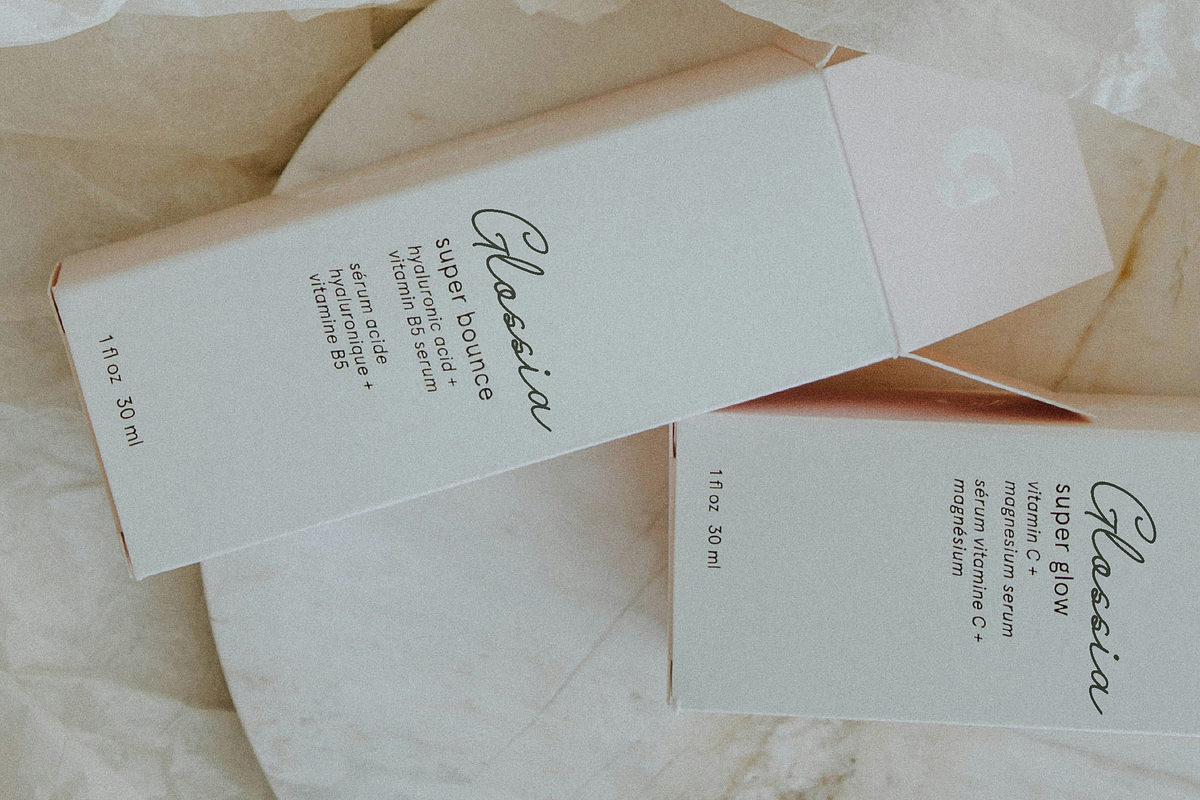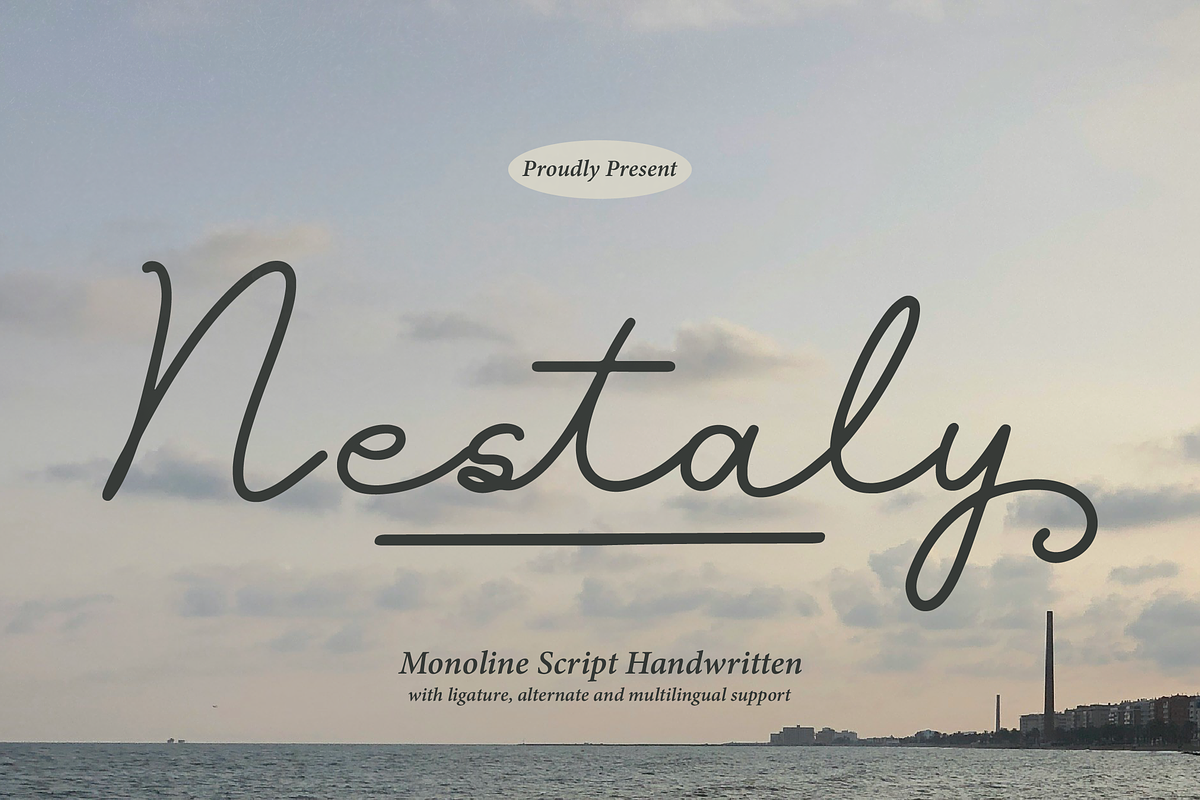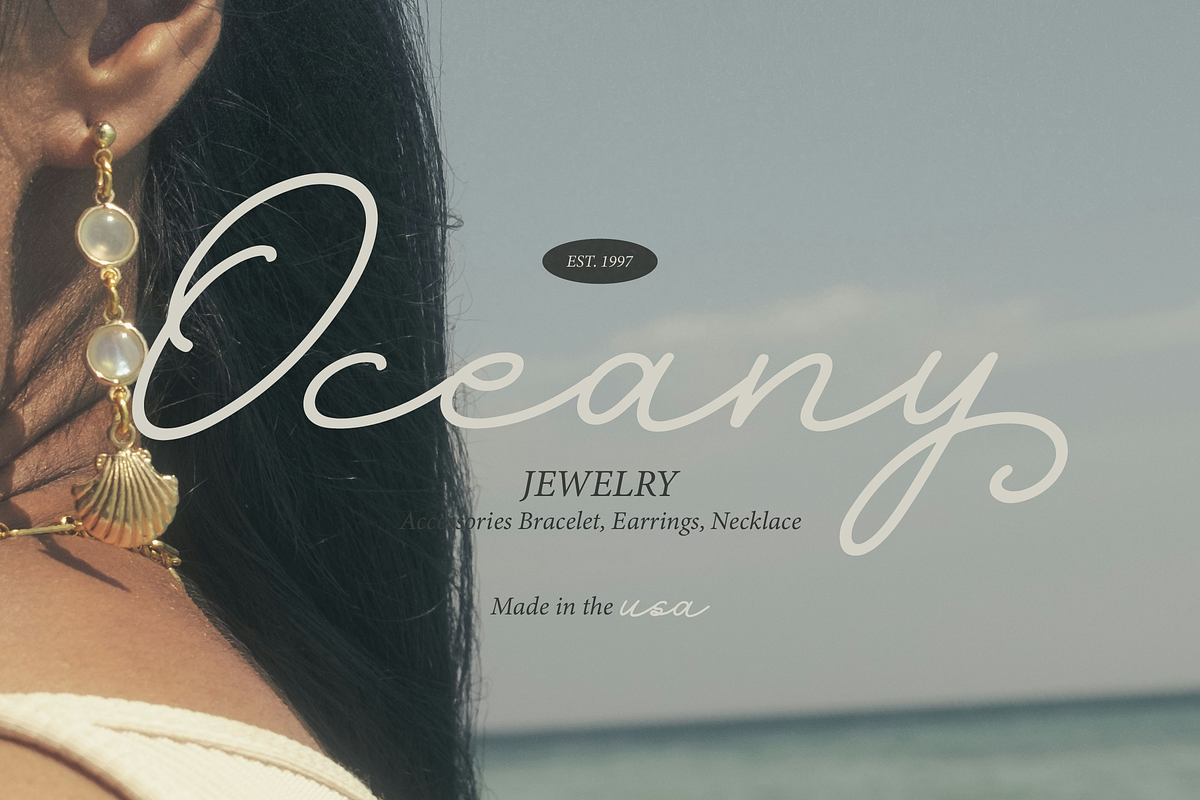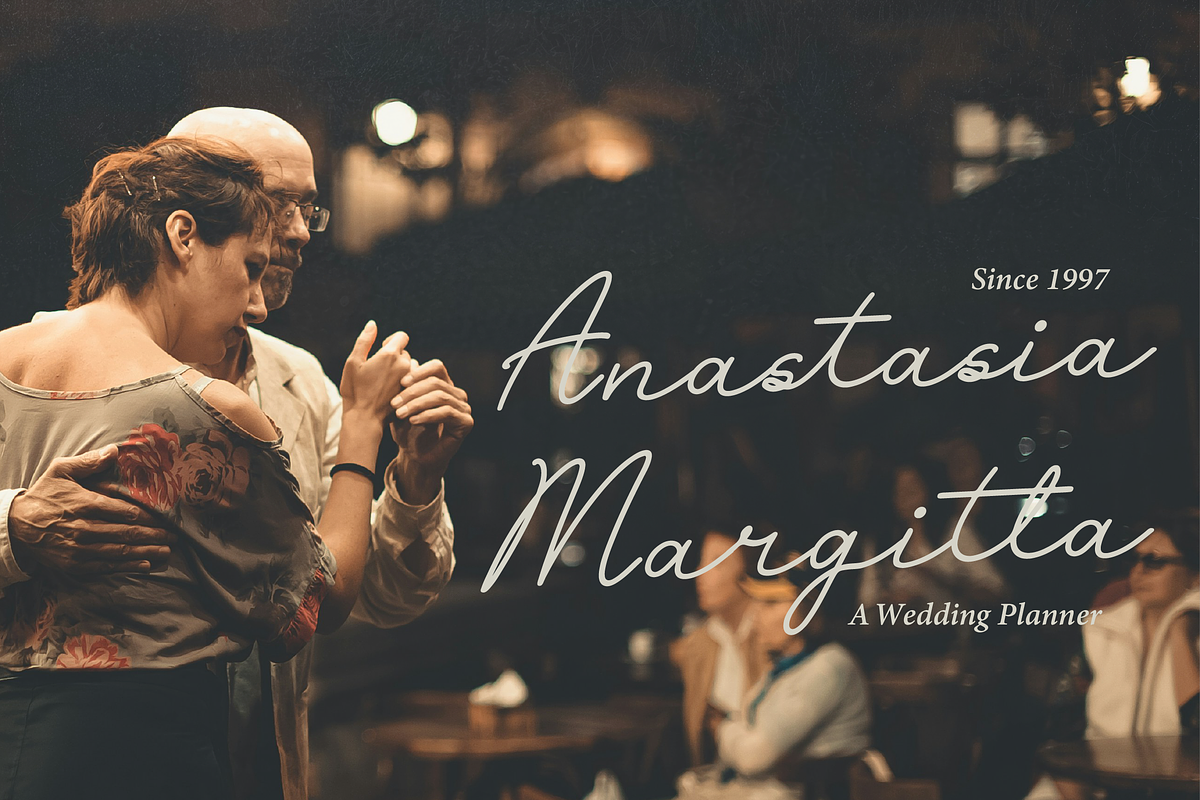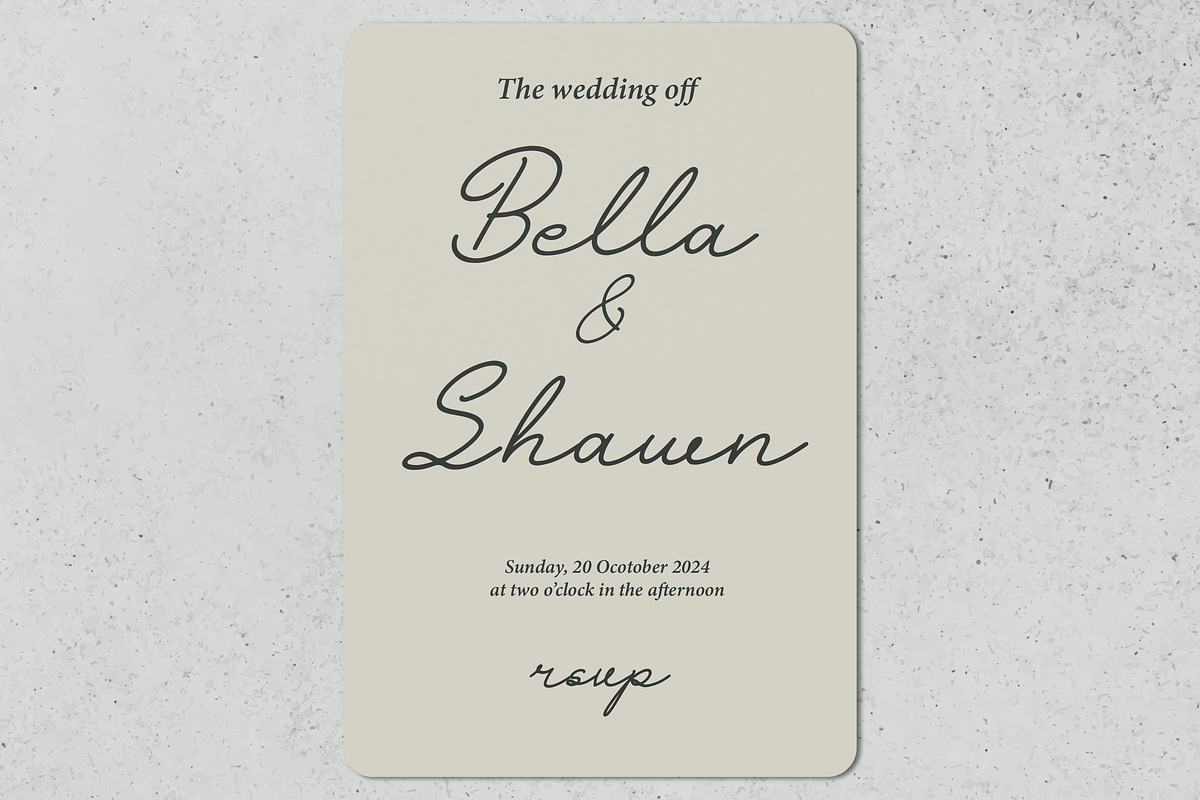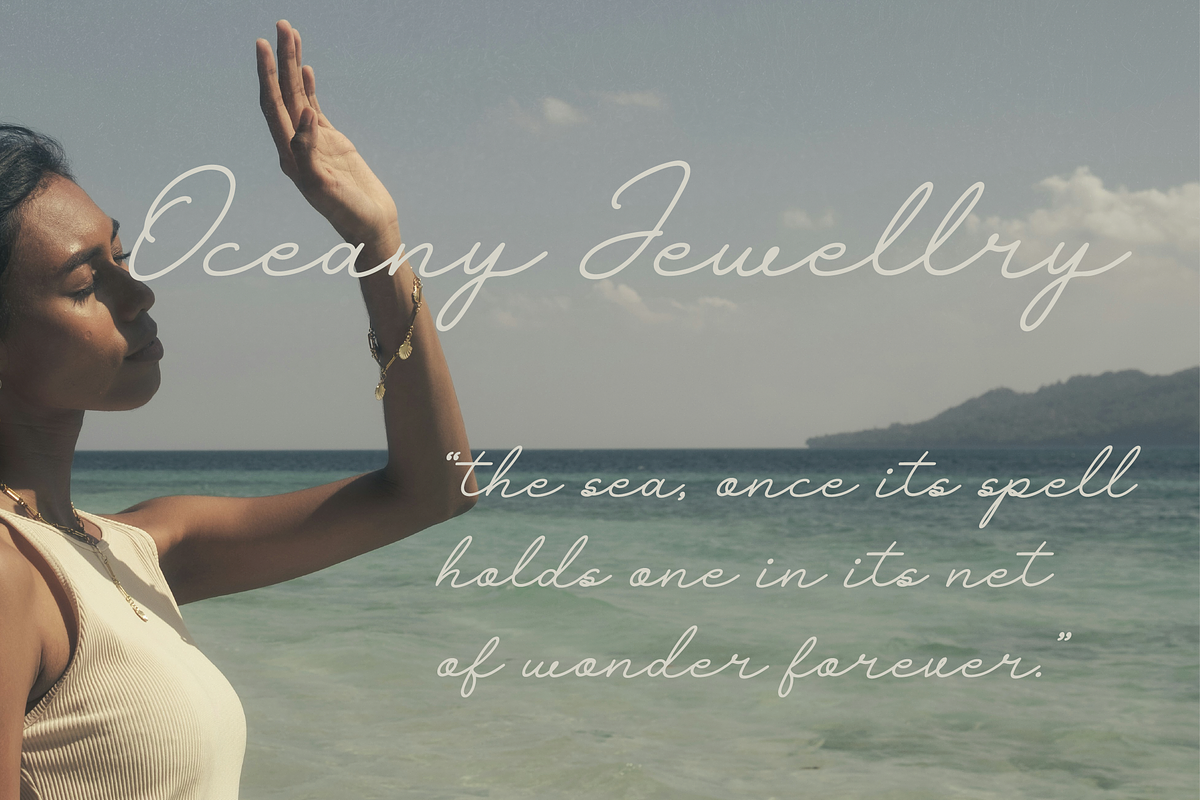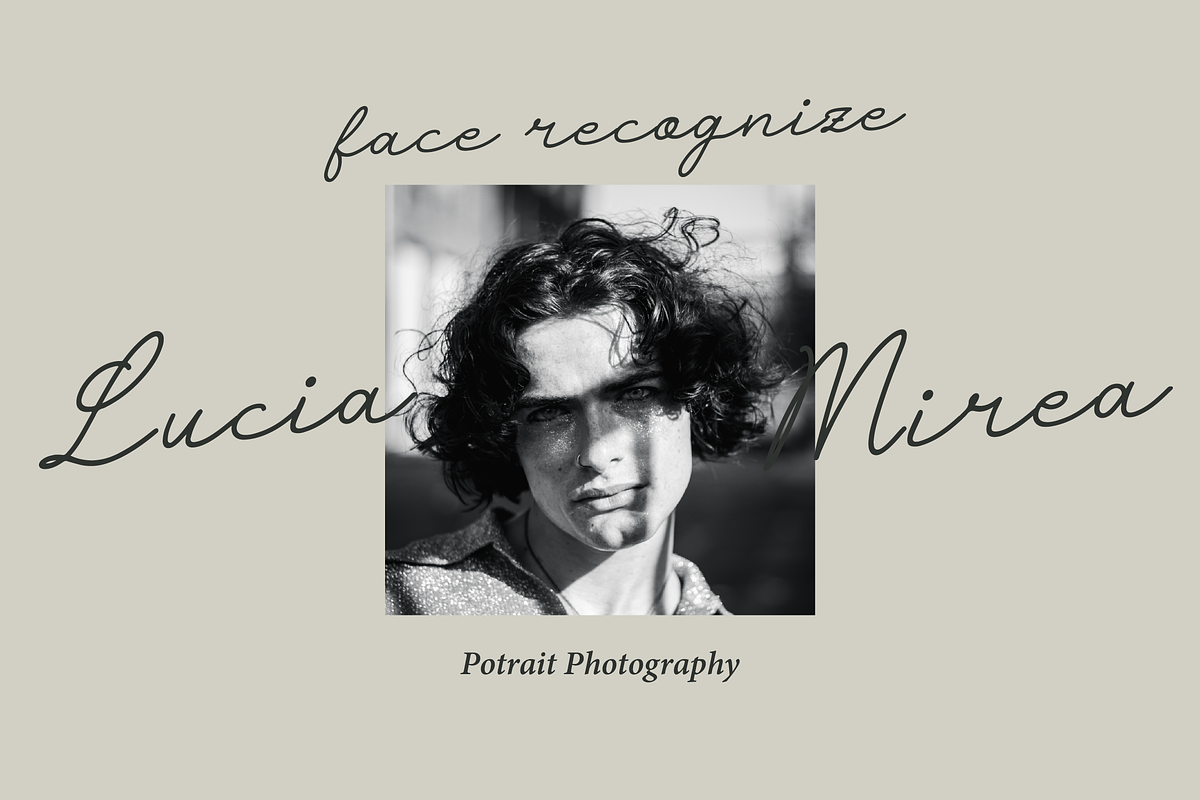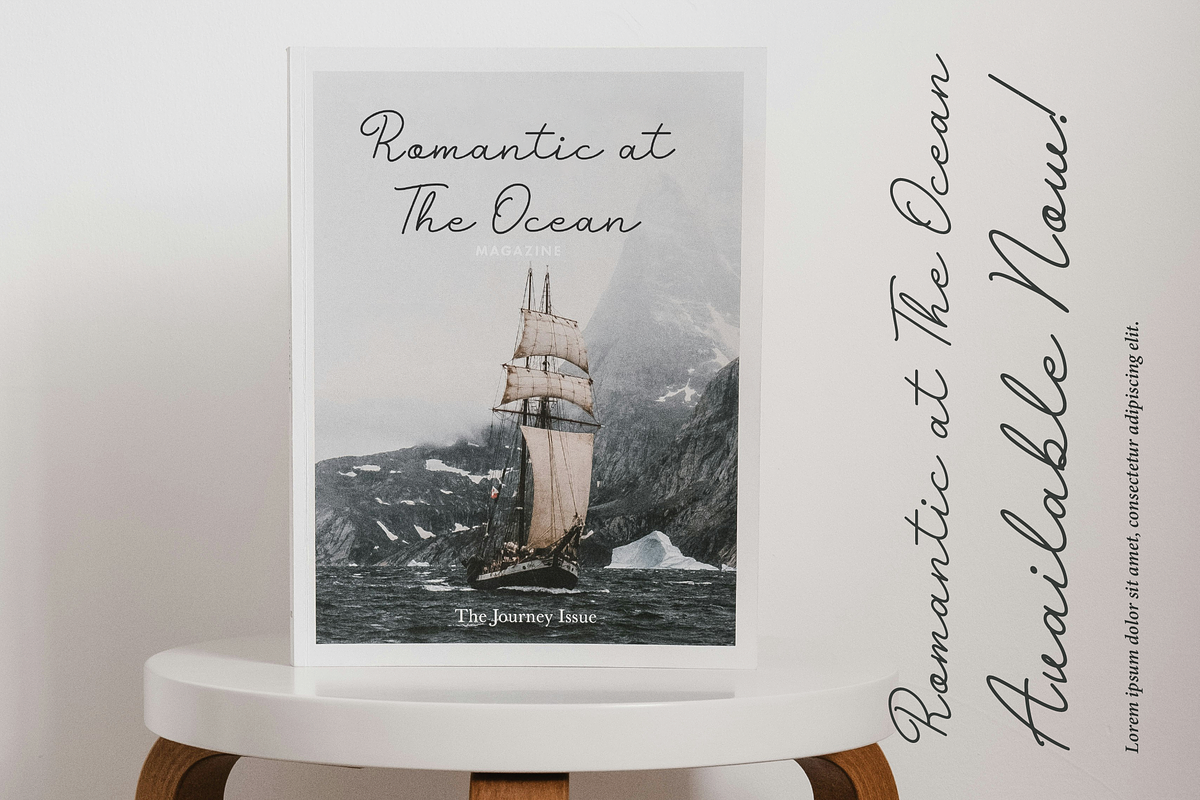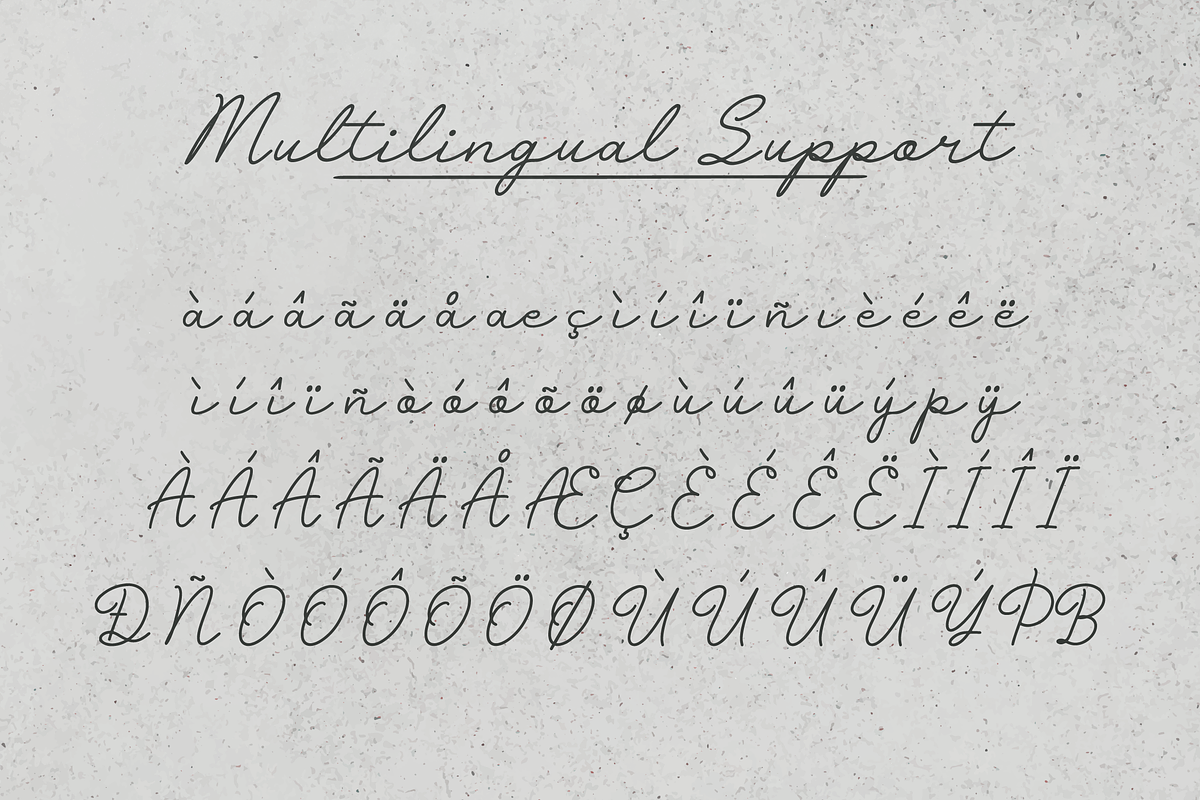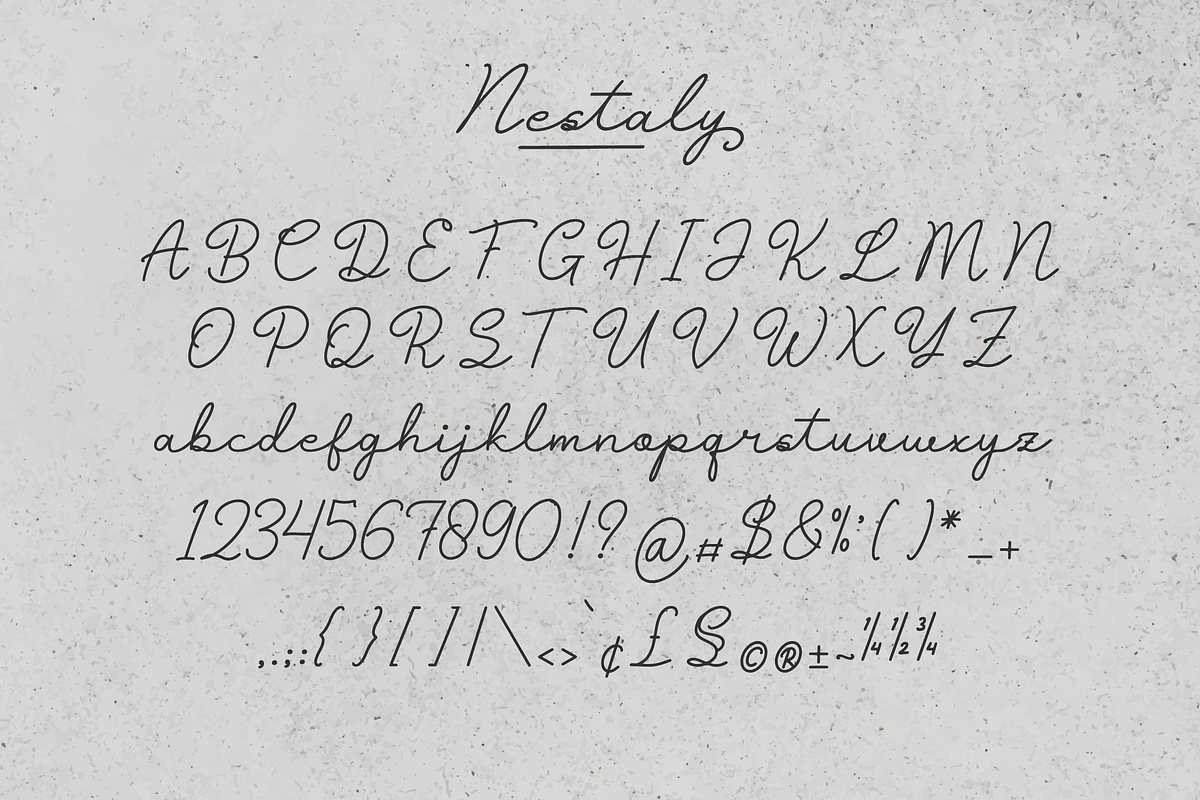
Nestaly Monoline Script Handwritten
Nestaly Monoline Script Handwritten, from Gracetypestudio, suitable for any projects such as: logos, branding projects, homeware designs, product packaging, mugs, quotes, posters, shopping bags, t-shirts, book covers, name card, invitation cards, greeting cards, label, photography, watermark, special events, and all your other lovely projects that need a Monoline Script Handwritten taste. ======================================================================== What’s Included : • Nestaly (OTF/TTF/WOFF) • Web Font (Only WOFF format) • Standard glyphs • Alternate and Ligature • Works on PC & Mac • Simple installations • Accessible in the Adobe Illustrator, Adobe Photoshop, Adobe InDesign, even work on Microsoft Word and Other Software. • PUA Encoded Characters – Fully accessible without additional design software. • Fonts include multilingual support Hope you enjoy with our font!